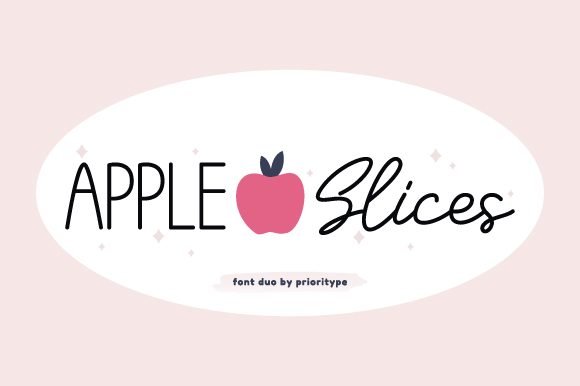
Have you ever been in the middle of a creative project, staring at a blank canvas or a dull block of text, and suddenly you’re hit with a spark of inspiration? You know, that feeling when everything comes together and you just can’t wait to bring your vision to life? For me, it’s moments like those that make the design process so magical.
One of the key elements that can elevate a design from ordinary to extraordinary is the right font. And that’s where Apple Slices Font comes in – a delicate script font that adds a touch of sweetness and whimsy to any project. Its thin lines and playful curves make it a wonderful choice for designers looking to brighten up their designs and add a personal touch.
Apple Slices Font Key Features
- Font Family: Apple Slices
- Unique Characteristics: Hand-drawn, organic feel with a modern twist, ideal for creative and playful designs
Designer Review: Apple Slices Font
Overall, I was intrigued by the Apple Slices Font. It’s a modern, playful font that can be used for various purposes. Here are some things that caught my attention:
- ✨ Unique Character Shapes: The font’s character shapes are quite distinctive and add a fun touch to any design.
- ✨ Good Legibility: The font is legible even at smaller sizes, making it suitable for body text or headings.
- ✨ Great for Casual Designs: Apple Slices Font is perfect for casual designs, such as social media posts, blog articles, or product labels.
- ⚠️ Limited Font Weight Options: The font only comes in a few weights, which may limit its versatility in more complex designs.
- ⚠️ Not Ideal for Formal Designs: The font’s playful nature makes it less suitable for formal designs or professional applications.
- ⚠️ Limited Language Support: The font may not support all languages, which could be a concern for global designs.
Overall, I think Apple Slices Font is a great addition to any designer’s toolkit, especially for casual designs. However, it’s essential to be aware of its limitations and use it accordingly.
Apple Slices Font is a great choice for food-related designs, packaging, and branding. It’s also perfect for creating a fun and playful atmosphere in your designs. To get the most out of it, use it in conjunction with bright and bold colors.